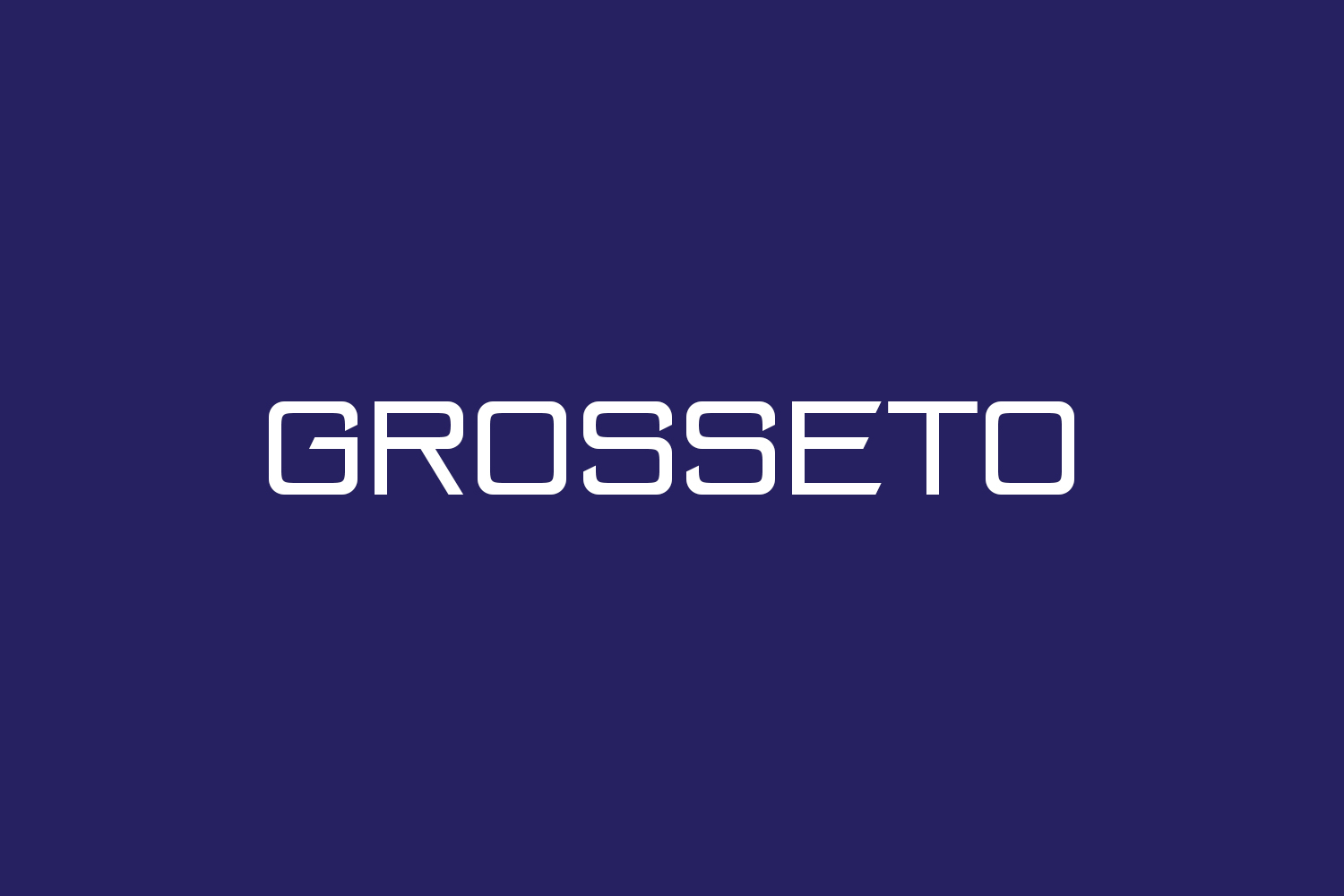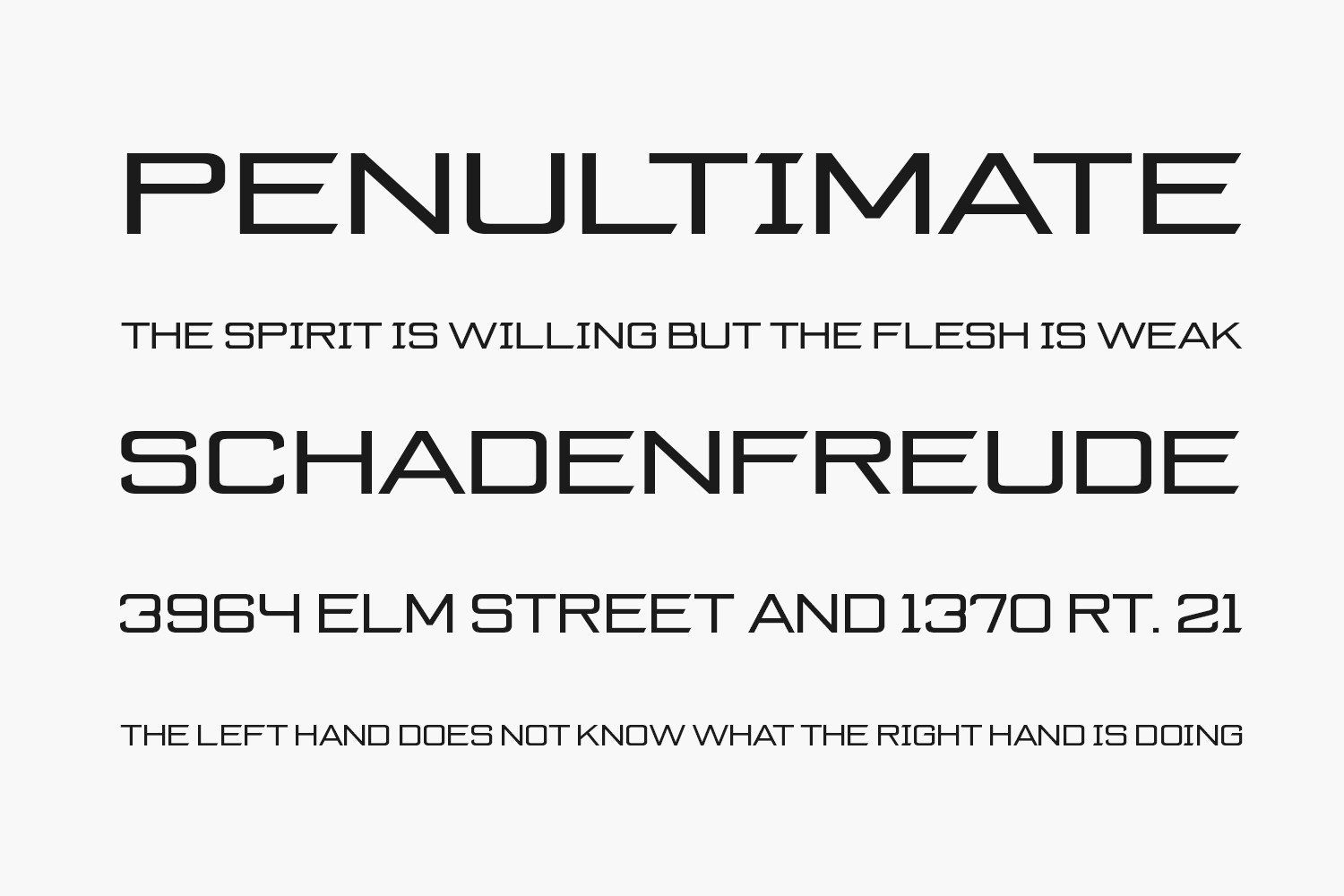
Discover the avant-garde allure of Grosseto Free Font, a contemporary typeface designed to elevate your creative projects. Ideal for headlines, logos, branding, magazines, product packaging, and invitations, Grosseto boasts clean lines and seamless curves that add a touch of sophistication to any design endeavor.
With its futuristic essence, Grosseto brings a modern aesthetic to your visual compositions. The sleek lines and smooth curves of this typeface impart a sense of class, ensuring your projects stand out with a distinctive and refined appeal. Elevate your design game and make a lasting impression with the exquisite elegance of Grosseto. Grosseto Free Font was designed by BrandSemut and is free for personal use only. Please purchase the full version for commercial use.